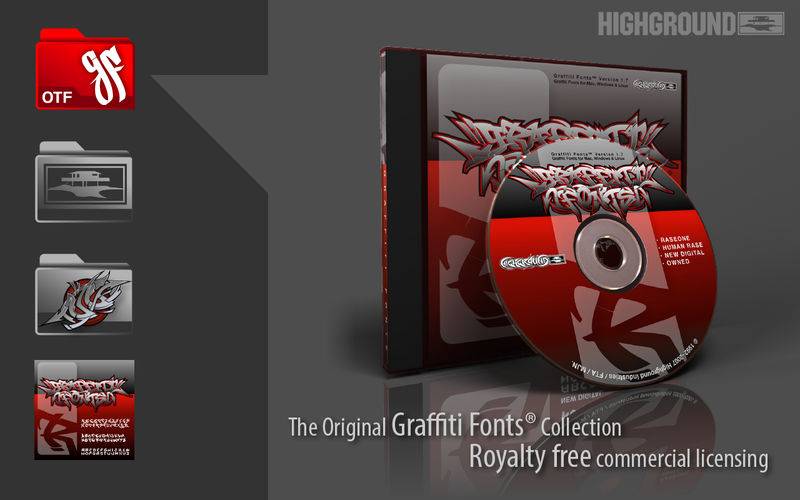
The first & original Graffiti Fonts™ collection is now available in the Mac app store! First released to the public in 2003 this collection was the first of it’s kind & includes the earliest, authentic, graffiti style typefaces ever created. Before this collection debuted there was no such thing as a graffiti font. We’ve included tag styles, wildstyles, throwie styles & more all designed by real graff-writers & experienced font developers. All fonts are licensed for commercial use & included in OpenType (OTF) format for compatibility with any modern Mac, PC or linux system.
Raseone®
New Digital™
Human Rase™
Graffpity™
Whoa!™
SearFont™
Writers™
5 Cent™
B-Boy™
Can Control™
Homeboy™
Kilroy Was Here™
08 Underground™
Cap Construct™
Subway™